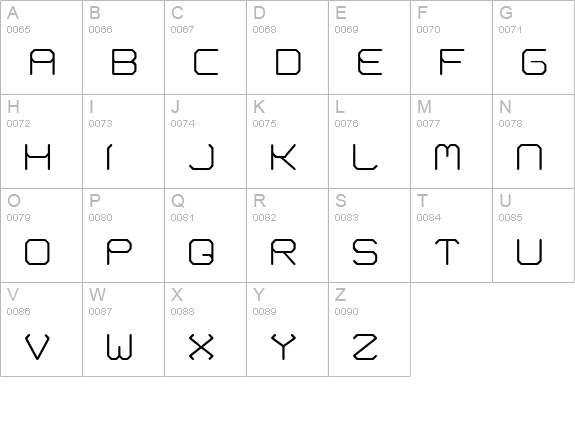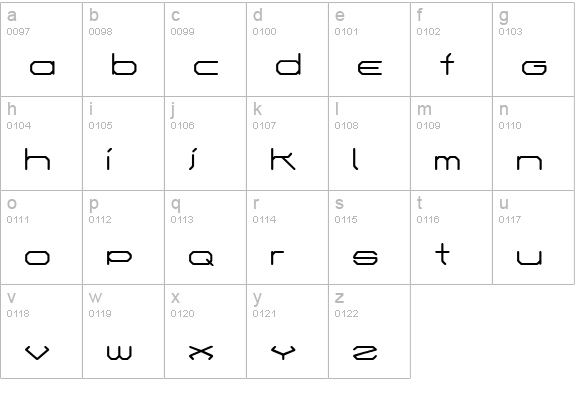
Fontmaker's Choice Font Details
Fontmaker's Choice is a stunning and versatile font that is sure to make a statement in any design project. With its elegant yet modern style, this font is perfect for a wide range of applications, from branding to marketing materials to social media graphics. The sleek lines and unique flourishes of Fontmaker's Choice will instantly elevate your designs and capture the attention of your audience. What makes Fontmaker's Choice even more appealing is that it is available for free download at FontsMarket.com. Yes, that's right - you can easily access this incredible font without spending a dime. Whether you are a seasoned designer looking to add a fresh touch to your work or a newcomer searching for the perfect font to kickstart your projects, Fontmaker's Choice is a fantastic option that won't break the bank. Don't miss out on the opportunity to enhance your designs with the beauty and sophistication of Fontmaker's Choice. Download it for free today at FontsMarket.com and take your creations to the next level!